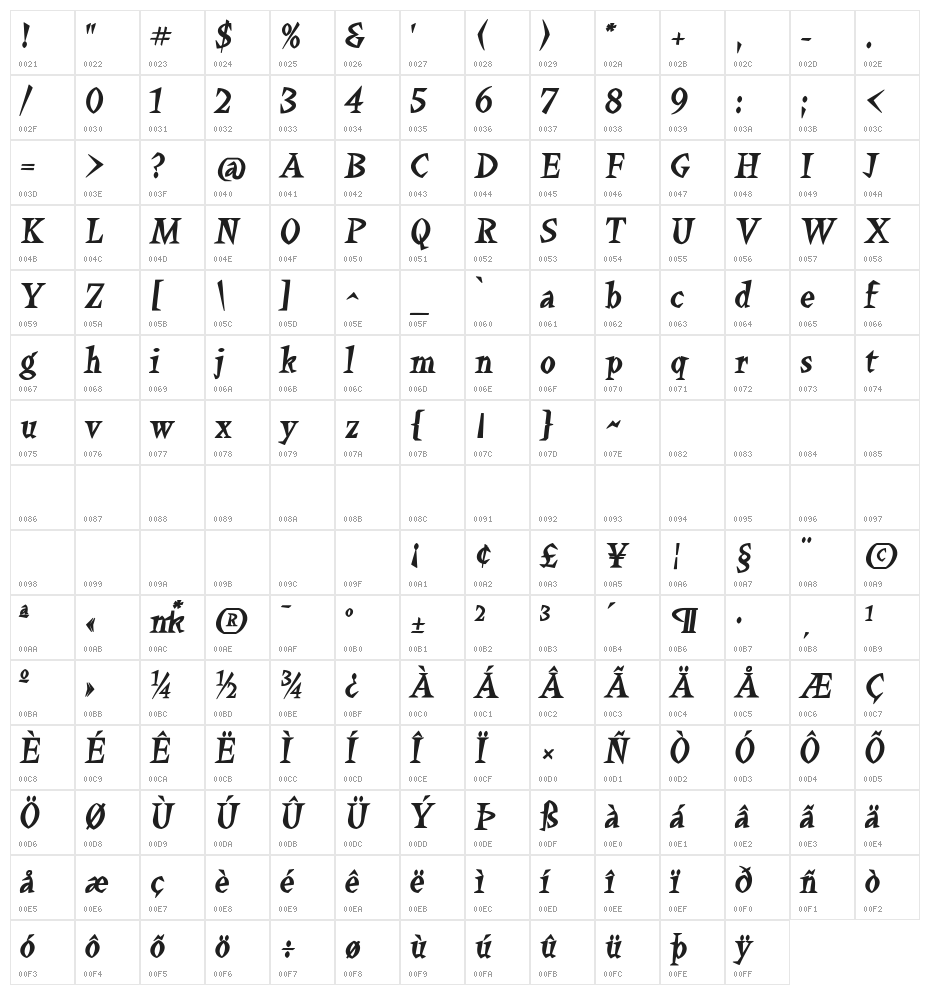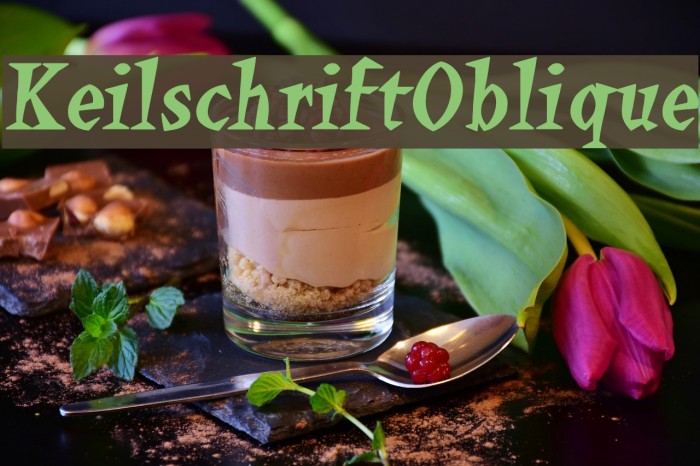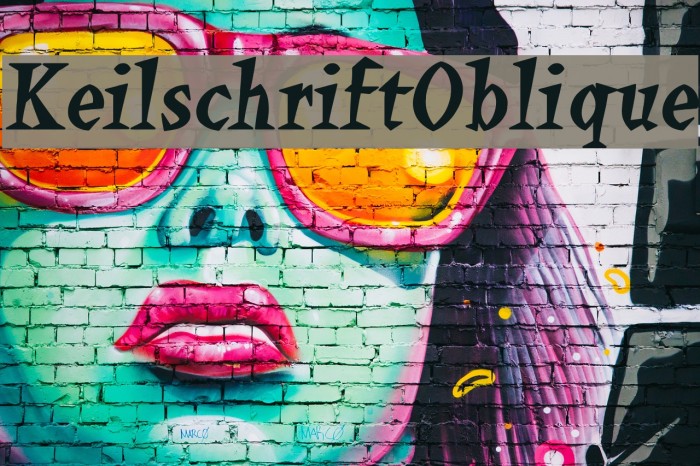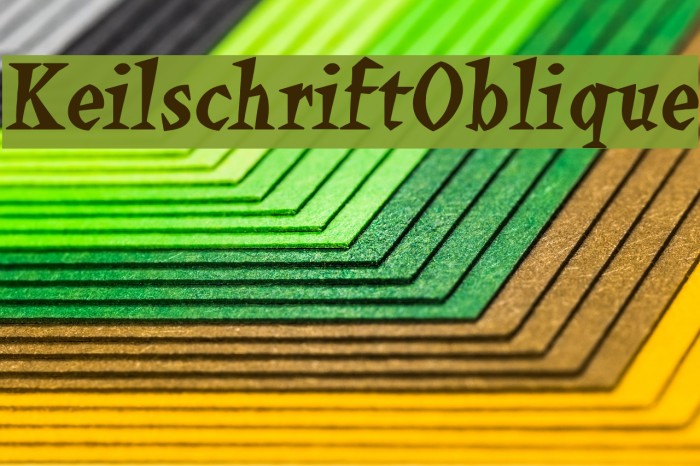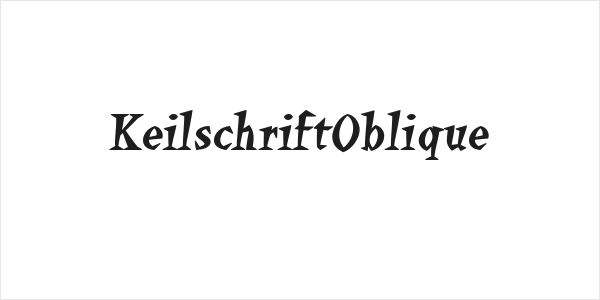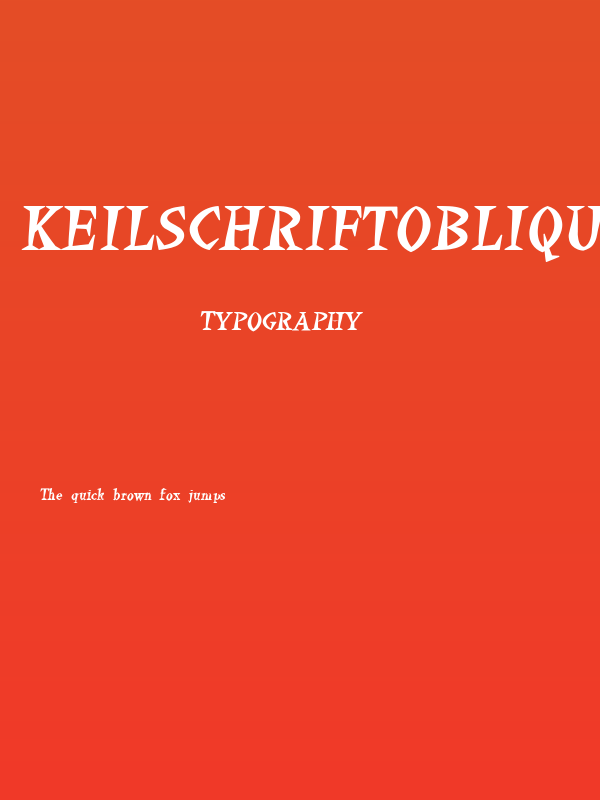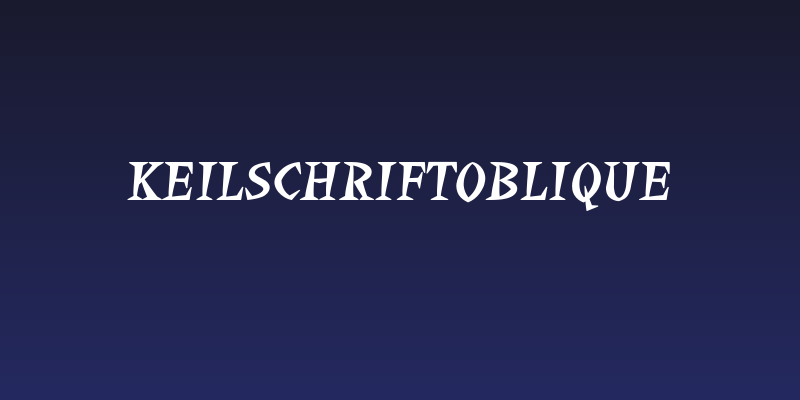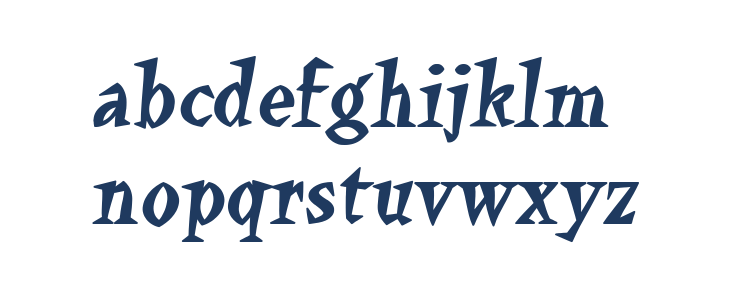
KeilschriftOblique Font
KeilschriftOblique Description
This font features a distinctive oblique style with sharp, angular serifs that give it a dynamic and energetic appearance. The characters are slightly slanted, adding a sense of movement and urgency. The uppercase letters are bold and commanding, while the lowercase letters maintain a consistent style with a slightly more delicate touch. The numerals are robust and clear, ensuring readability. Special characters are designed with the same angular flair, making them stand out. This font's unique style is reminiscent of ancient scripts, yet it maintains a modern edge.
| Proposed Projects | Ideal for projects that require a bold, historical feel, such as book covers, posters, or branding for cultural events. |